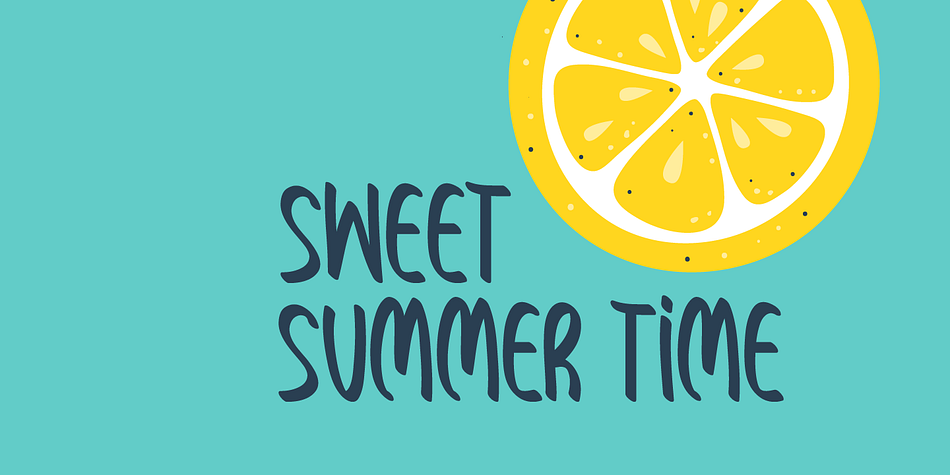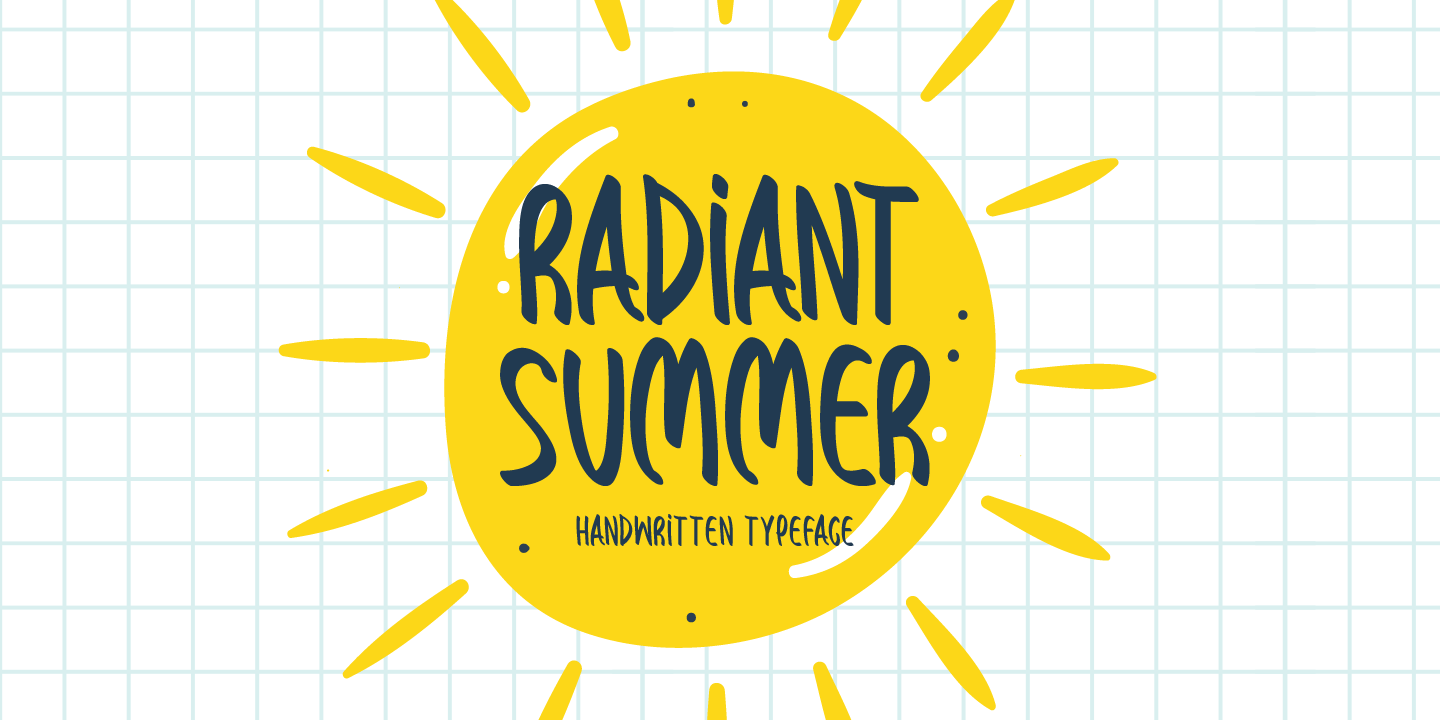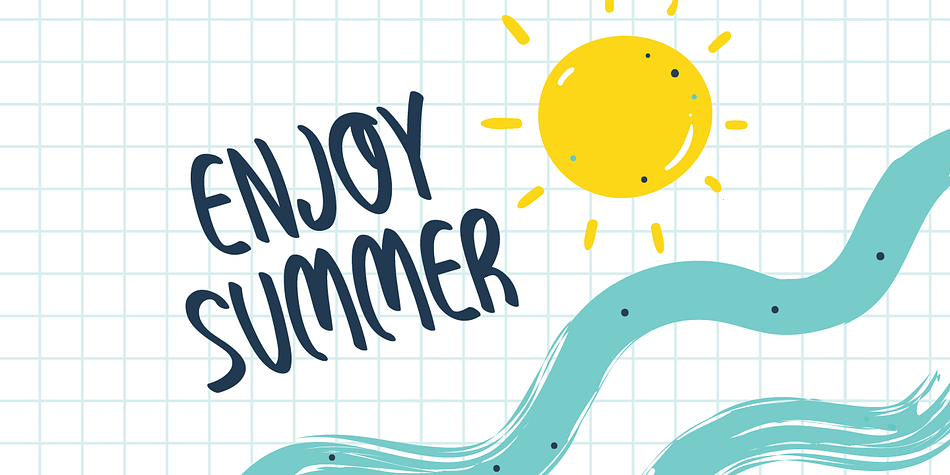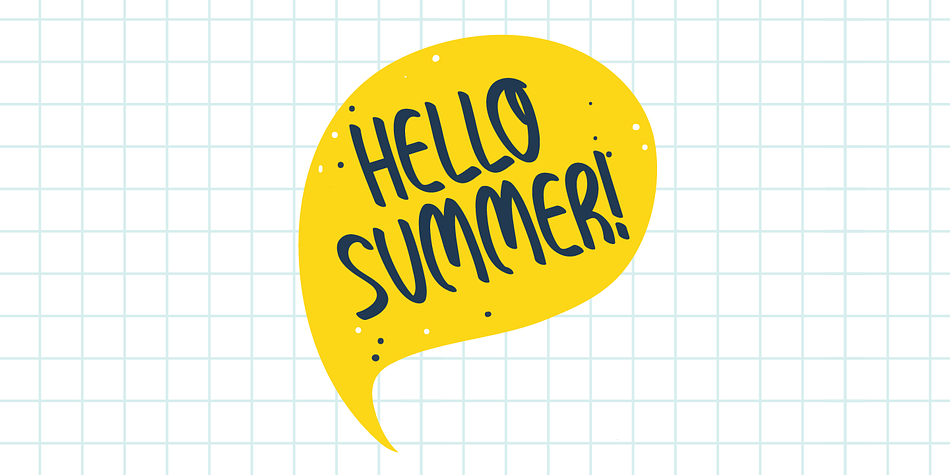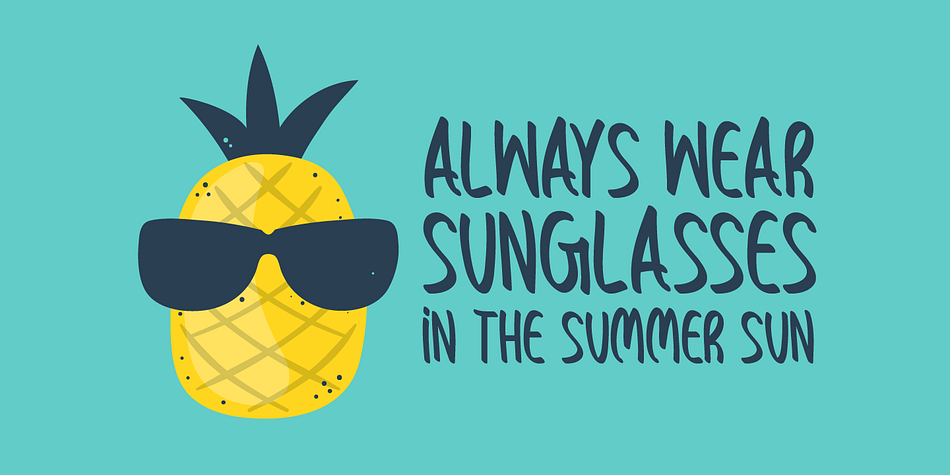
Designed by Md. Shohail Bhuiyan, Radiant Summer is a hand display and hand drawn font family published by Seemly Fonts.
Radiant Summer is a cute and casual handwritten font. No matter the topic, this font will be an incredible asset to your fonts’ library, as it has the potential to elevate any creation.